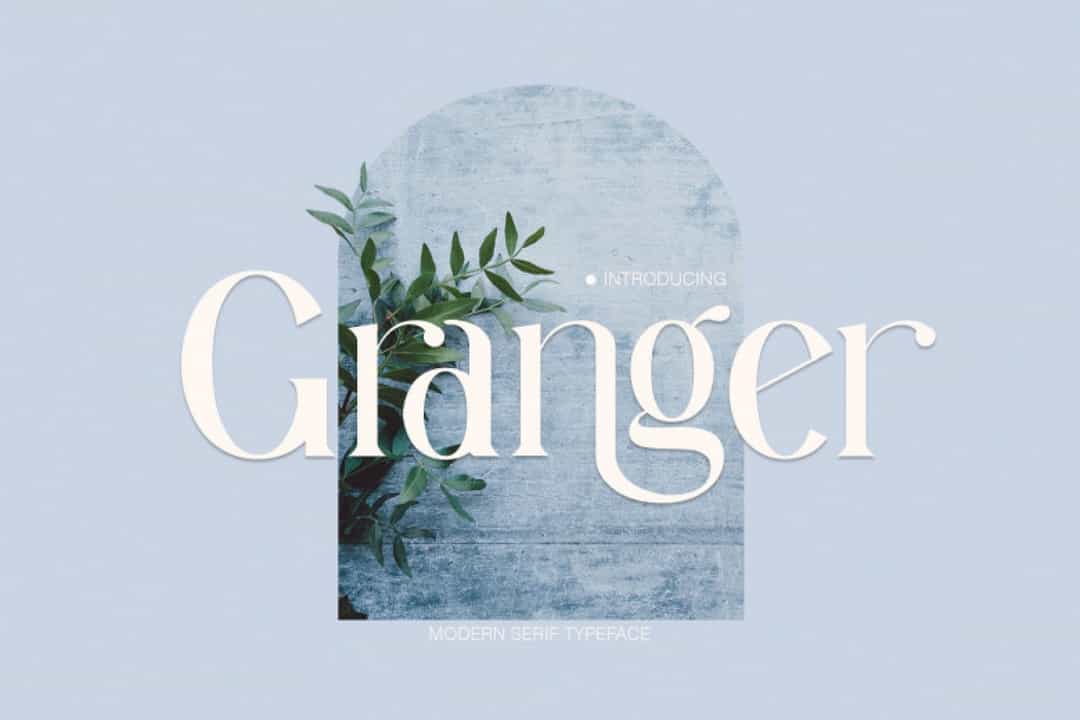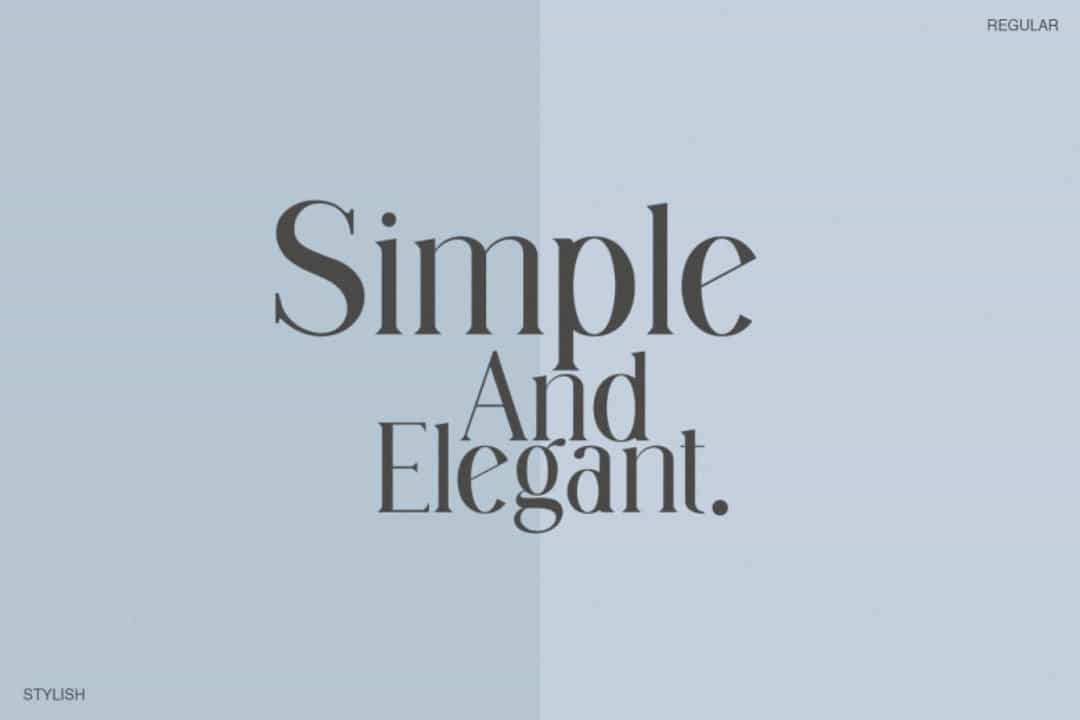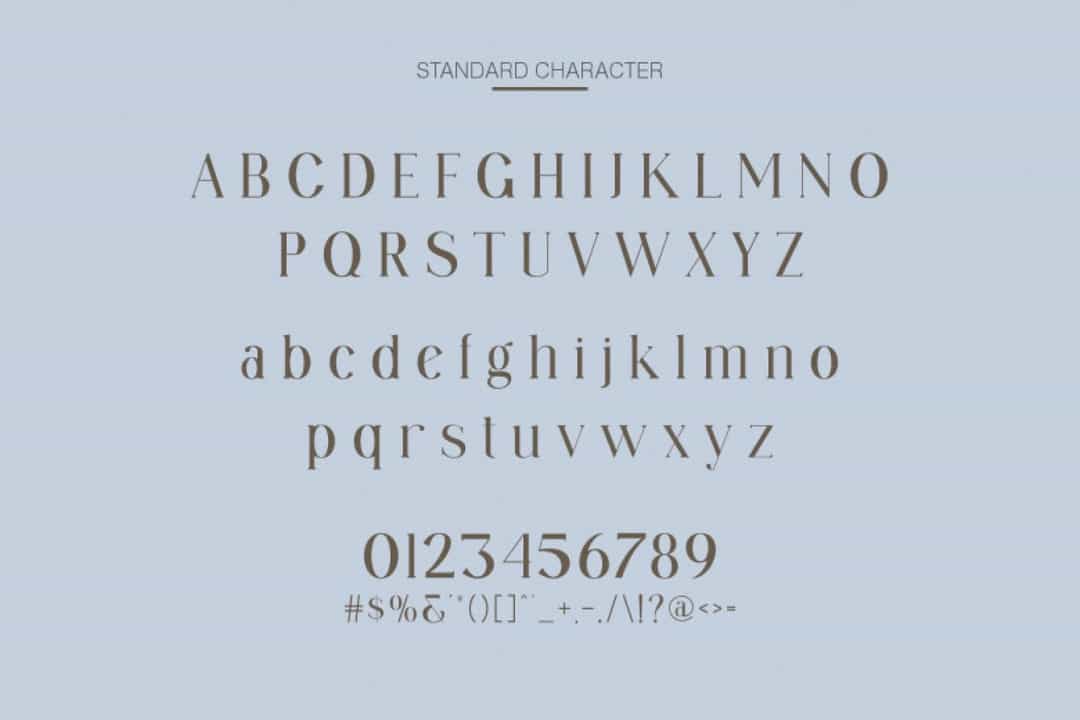
Granger is an elegant and refined serif font. Both modern and timeless, it works well in logos, magazines and social media posts – perfect for logos, magazines or social media posts! Prepared to be used in your next project! If you want a sophisticated, stylish, classy contemporary and chic touch to your designs this font was made just for you!